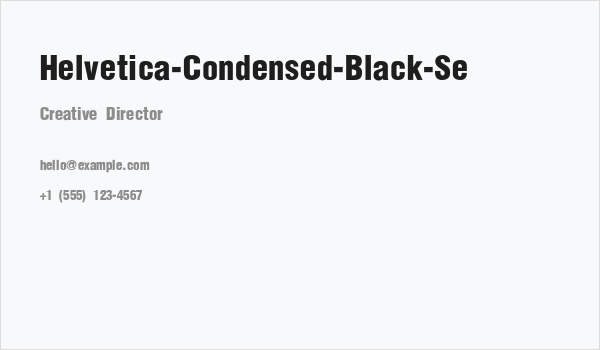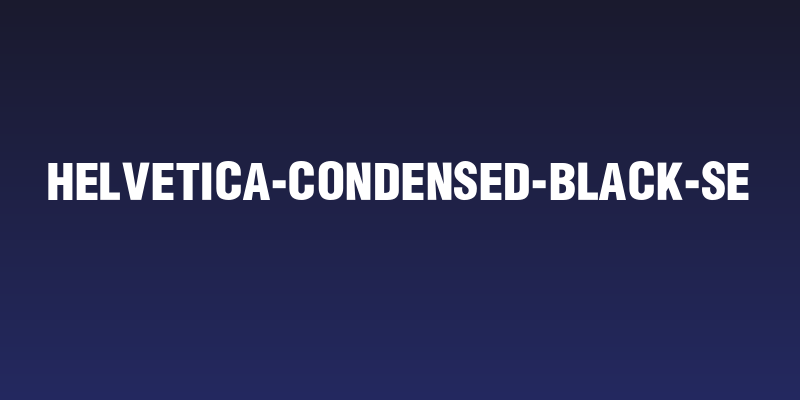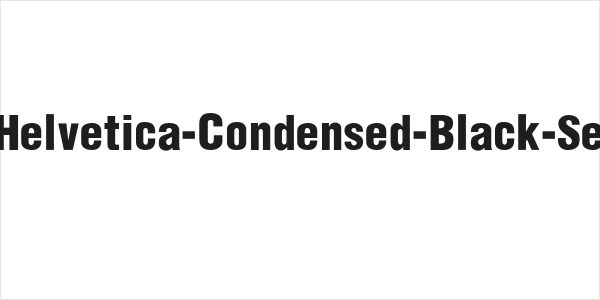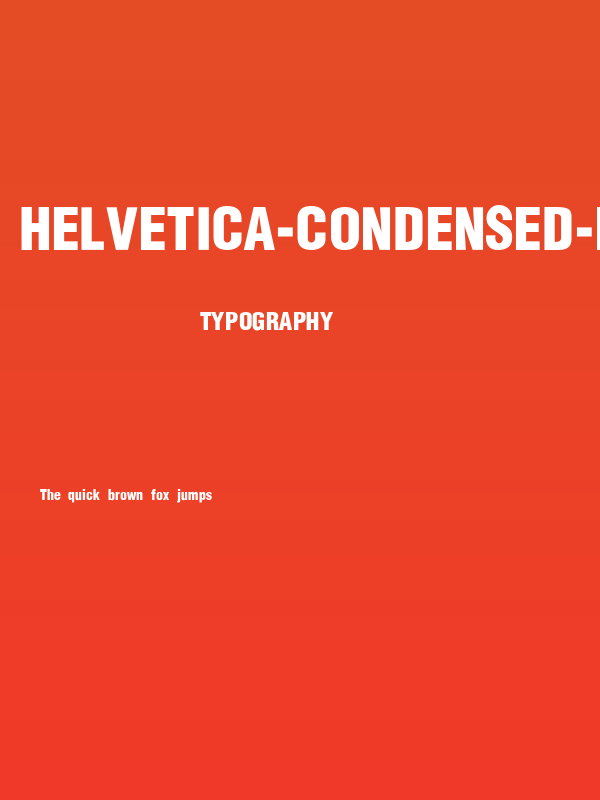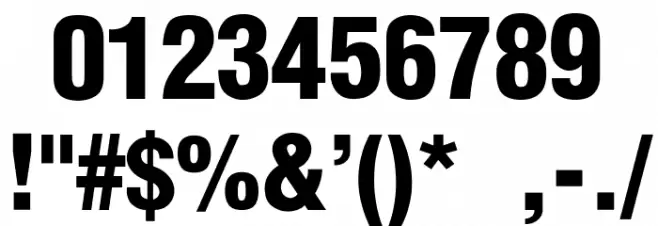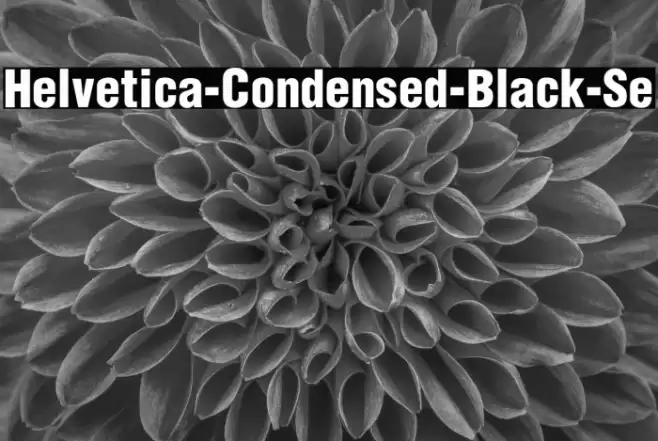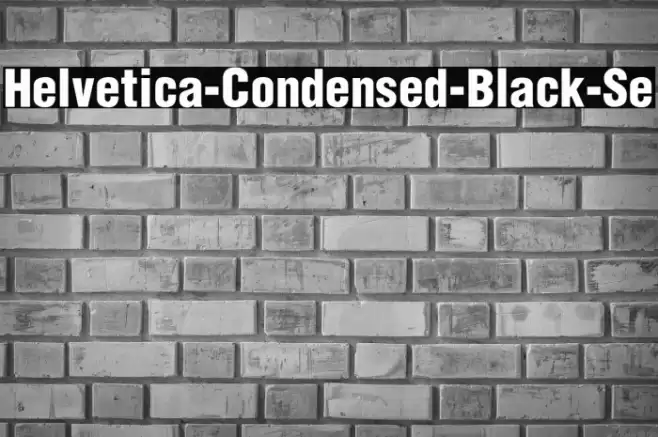
Helvetica-Condensed-Black-Se Font
Helvetica-Condensed-Black-Se Description
This typeface is characterized by its bold and condensed letterforms, offering a strong and impactful visual presence. The uppercase and lowercase letters maintain a uniform stroke width, contributing to its clean and modern aesthetic. The numerals are equally bold, ensuring readability and consistency across various applications. The special characters are designed with the same weight and style, making them seamlessly integrate with the rest of the typeface. This font is ideal for creating attention-grabbing headlines and titles, where space is limited but impact is essential.
| Proposed Projects | Ideal for advertising, posters, branding, and any design requiring strong, condensed typography. |